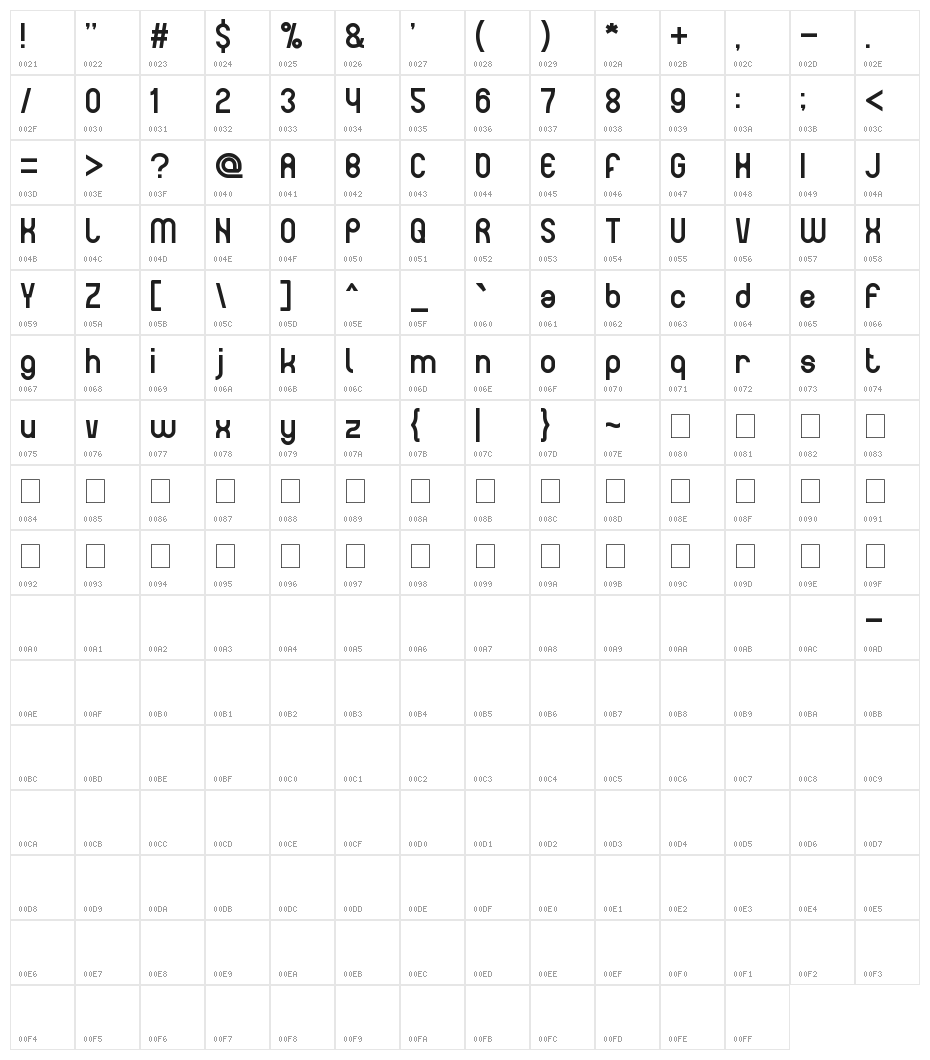
THE HAPPY FACE SMILE Font
THE HAPPY FACE SMILE Description
This font features a playful and rounded design, characterized by its smooth curves and uniform stroke width. The uppercase letters have a consistent height, while the lowercase letters maintain a friendly and approachable appearance. The numbers are bold and clear, making them easily readable. Special characters are designed with the same rounded style, ensuring a cohesive look across all glyphs. The overall aesthetic is modern and slightly retro, reminiscent of mid-20th-century design trends. This font is versatile, suitable for both digital and print media, and can add a touch of whimsy to any project.